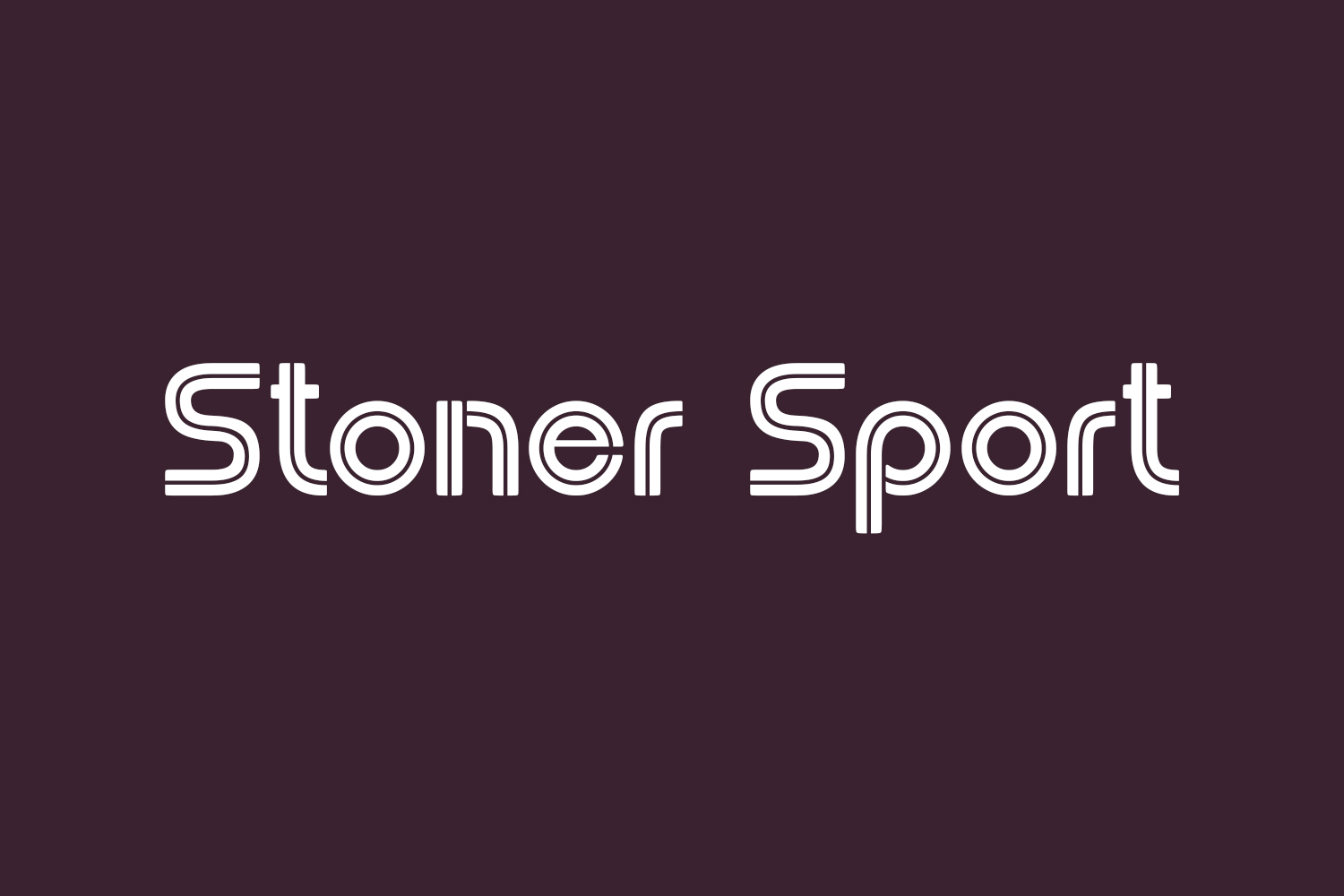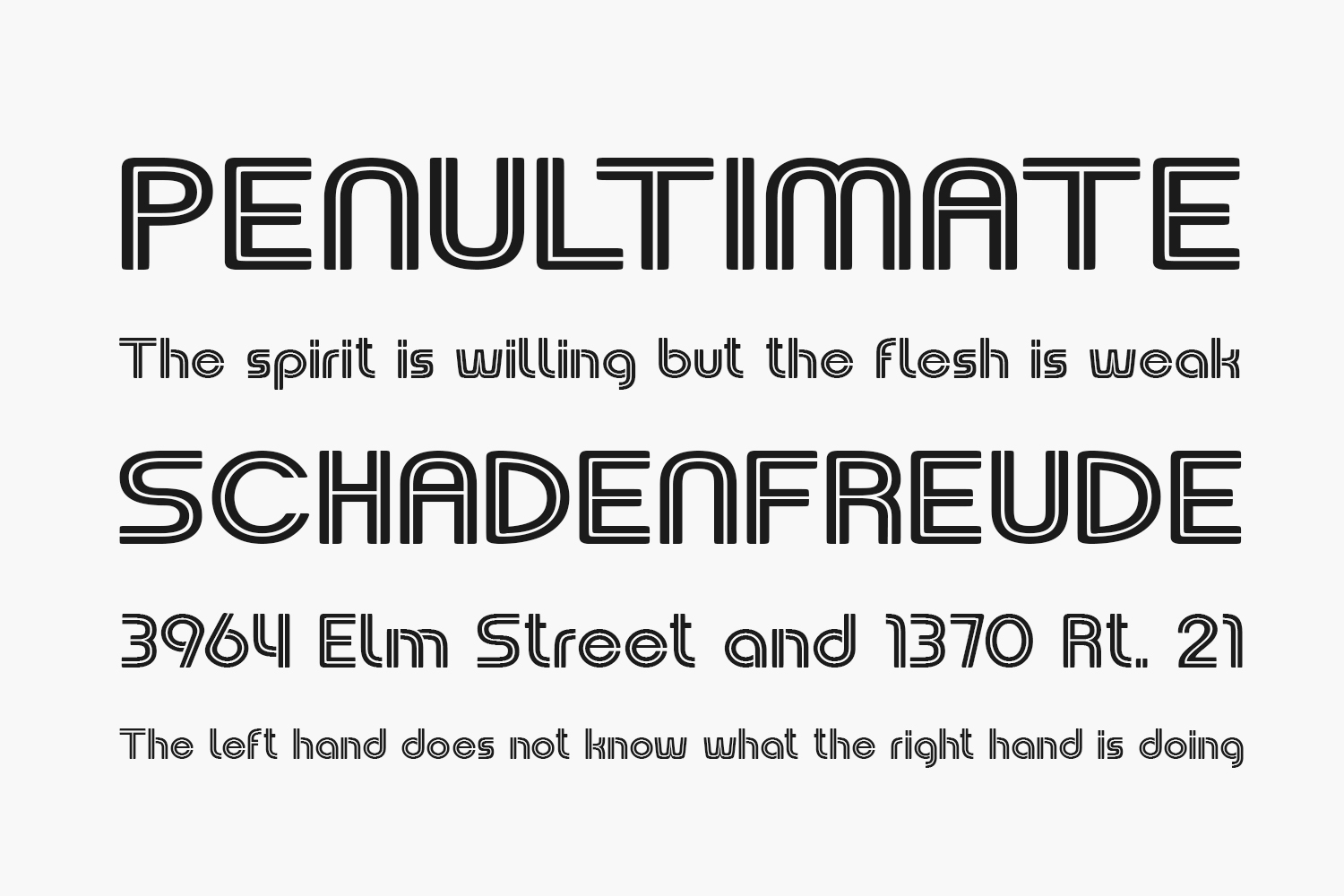
Presenting Stoner Sport Free Font: a nostalgic display font evoking the charm of vintage typewriting. With its dynamic and distinctive appearance, it’s ideal for crafting memorable logos, adorning car stickers, announcing racing events, and much more. Incorporate it into your designs to effortlessly captivate your audience’s attention. Download the font for free if you need it for personal use or purchase the full version for commercial use.
Designed by Alit Design